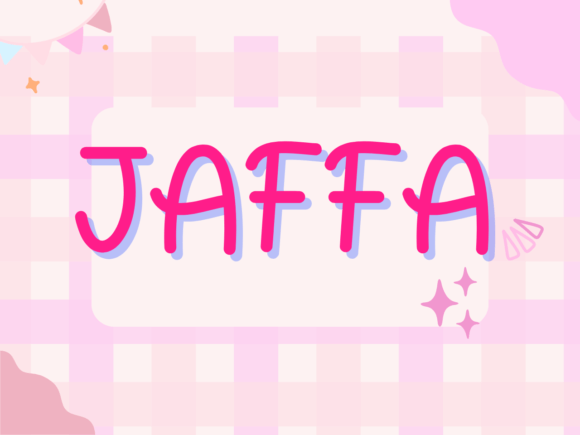
Introducing Jaffa Font: A Handwritten Masterpiece to Elevate Your Design Endeavors
In the realm of captivating handwritten fonts, Jaffa stands tall as a beacon of creativity and charm. With its enchanting natural style, this exquisite script beckons you to unleash your imagination and embark on a journey of endless design possibilities.
Jaffa's inherent beauty lies in its meticulously crafted characters, each stroke imbued with a sense of playfulness and authenticity. Its friendly demeanor lends an approachable and inviting touch to any project, instantly captivating the hearts of your audience.
Whether you seek to design eye-catching labels that demand attention, create heartfelt invitations that exude warmth, or craft captivating social media posts that resonate with your followers, Jaffa is your steadfast companion. Its versatility knows no bounds, seamlessly adapting to a myriad of design concepts, from vintage-inspired aesthetics to modern and minimalist layouts.
Immerse yourself in a world where creativity flourishes and words come alive. With Jaffa as your trusted font companion, you'll discover a newfound joy in crafting designs that leave a lasting impression. Its ability to evoke emotions and convey messages with unparalleled finesse will transform your design projects into works of art.
Step into the realm of Jaffa and unleash the boundless potential within you. Let your designs blossom with a touch of whimsy and a dash of elegance, captivating your audience with every stroke of this extraordinary font.